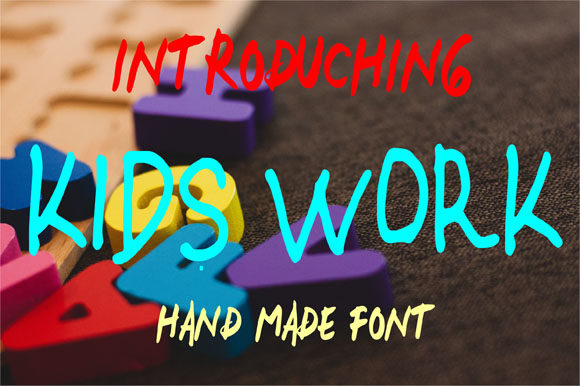
Journey into the whimsical world of Kids Work Font, a delightful display font crafted by TeakWord, designed to ignite imagination and creativity. This charming font exudes an irresistible sweetness, transforming any design project into a captivating masterpiece.
Immerse yourself in the world of wonder as Kids Work's playful characters dance across the page, evoking a sense of childhood magic and limitless possibilities. Let your designs bloom with vibrant colors and whimsical illustrations, beautifully complemented by this enchanting font.
With Kids Work, your projects will radiate a unique and captivating charm, capturing the hearts of young and old alike. Express your creativity freely, knowing that this font will elevate your designs to new heights of visual appeal. Unleash your imagination and let Kids Work's playful spirit guide you towards enchanting design adventures.
Whether you're crafting enchanting invitations, designing captivating posters, or creating eye-catching social media graphics, Kids Work Font empowers you to weave tales of wonder and joy into every project. Its versatile nature makes it the perfect choice for a wide range of creative endeavors, from playful branding to cheerful marketing materials.
Don't settle for ordinary fonts. Embrace the extraordinary with Kids Work Font and watch your designs transform into captivating works of art. Let your creativity soar and experience the joy of creating designs that resonate with beauty, whimsy, and timeless appeal.